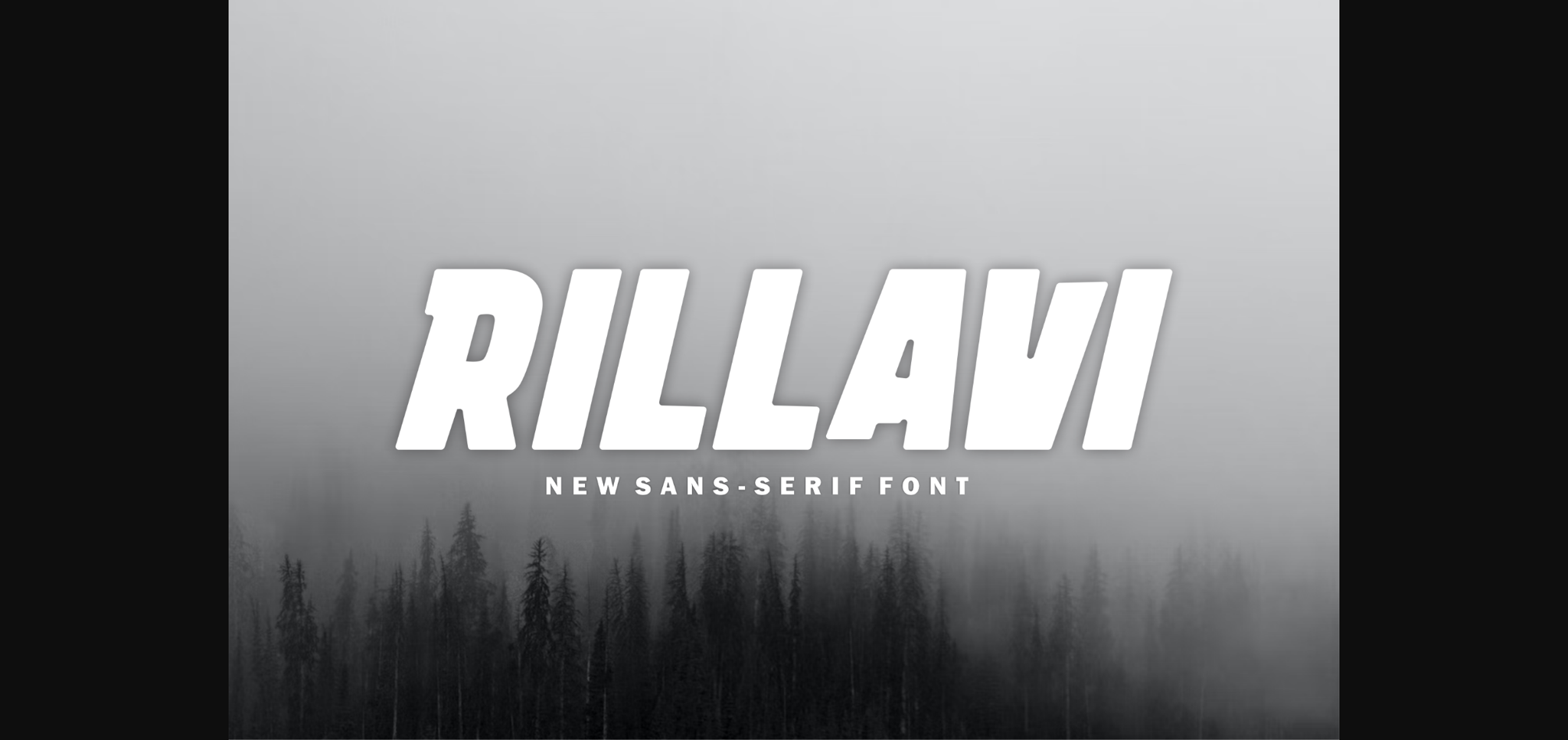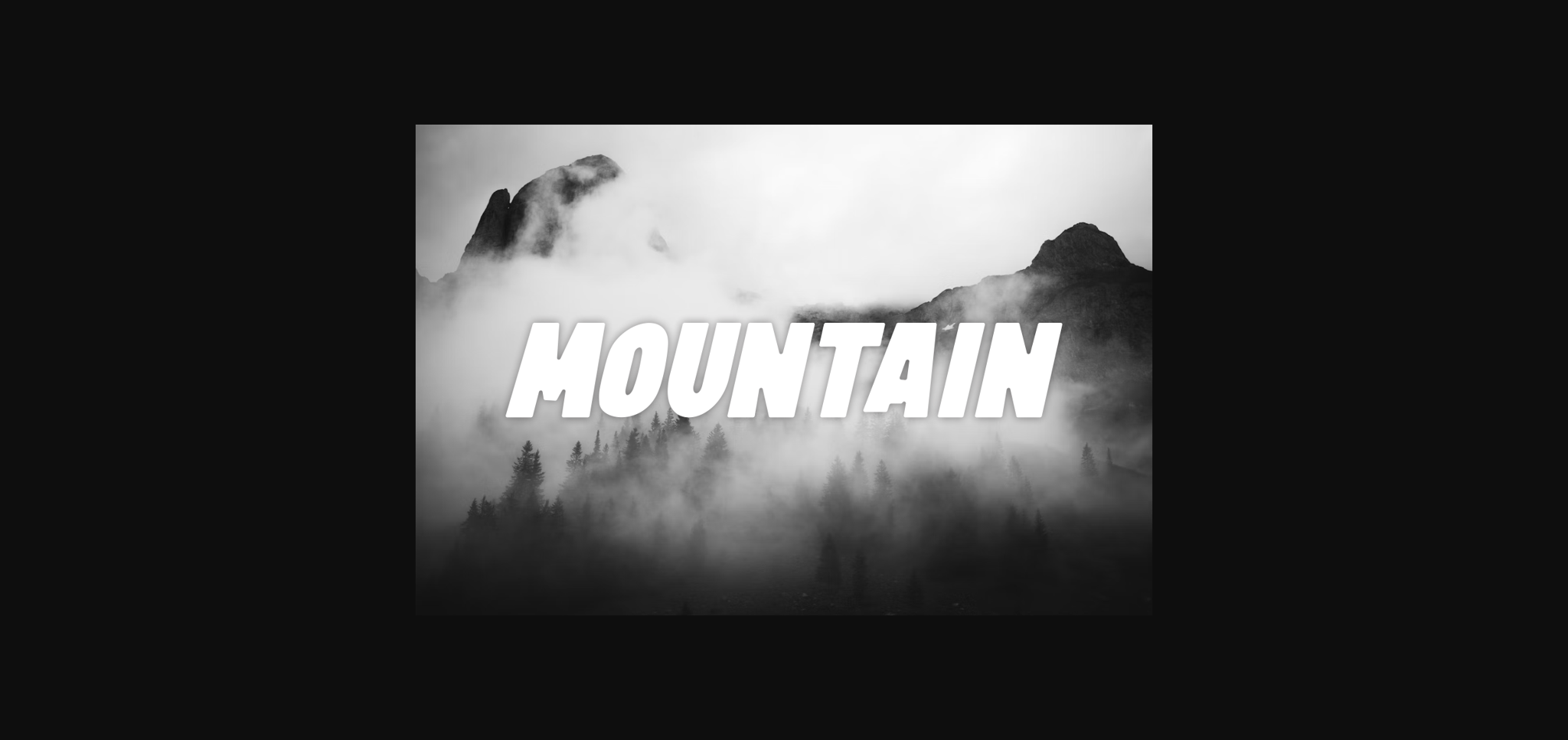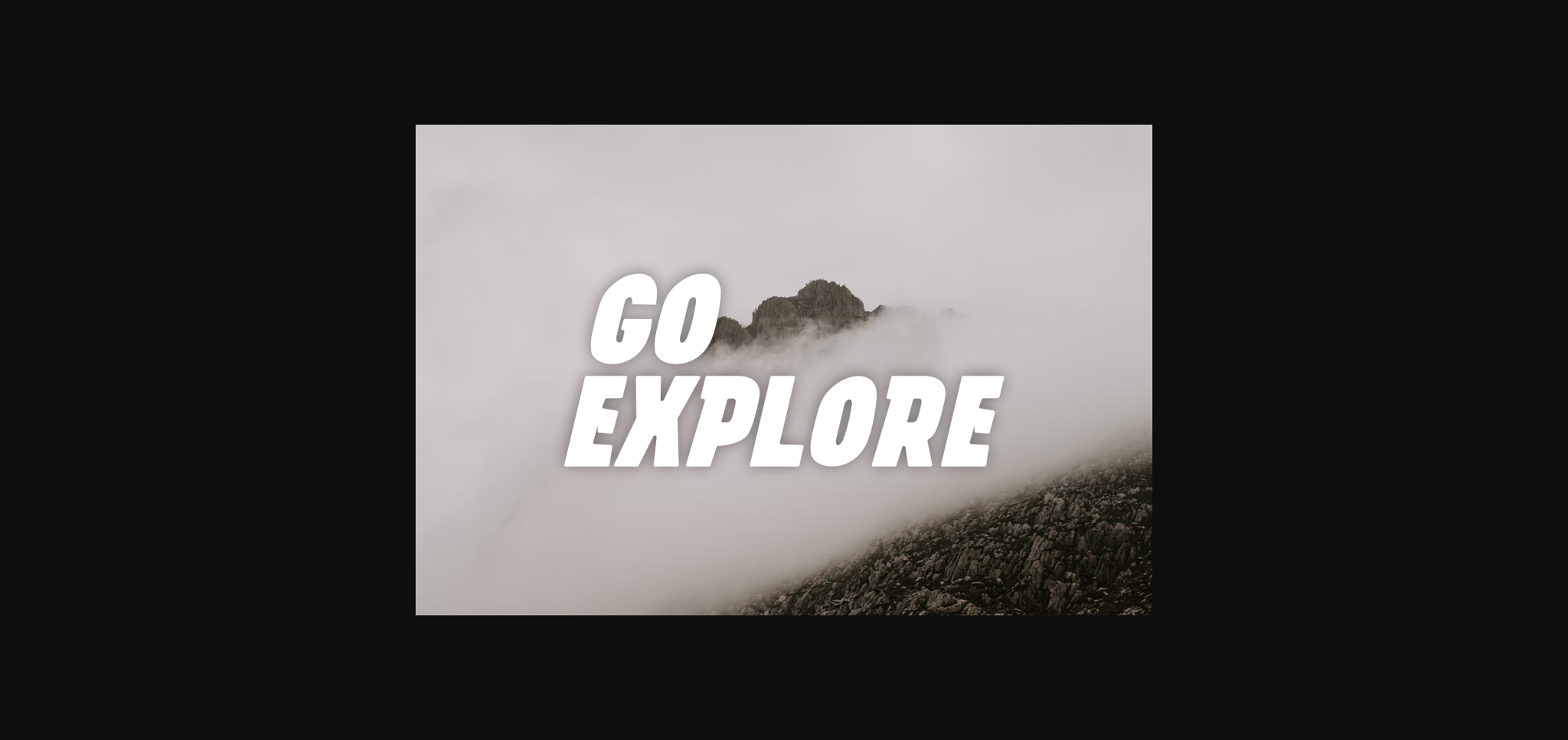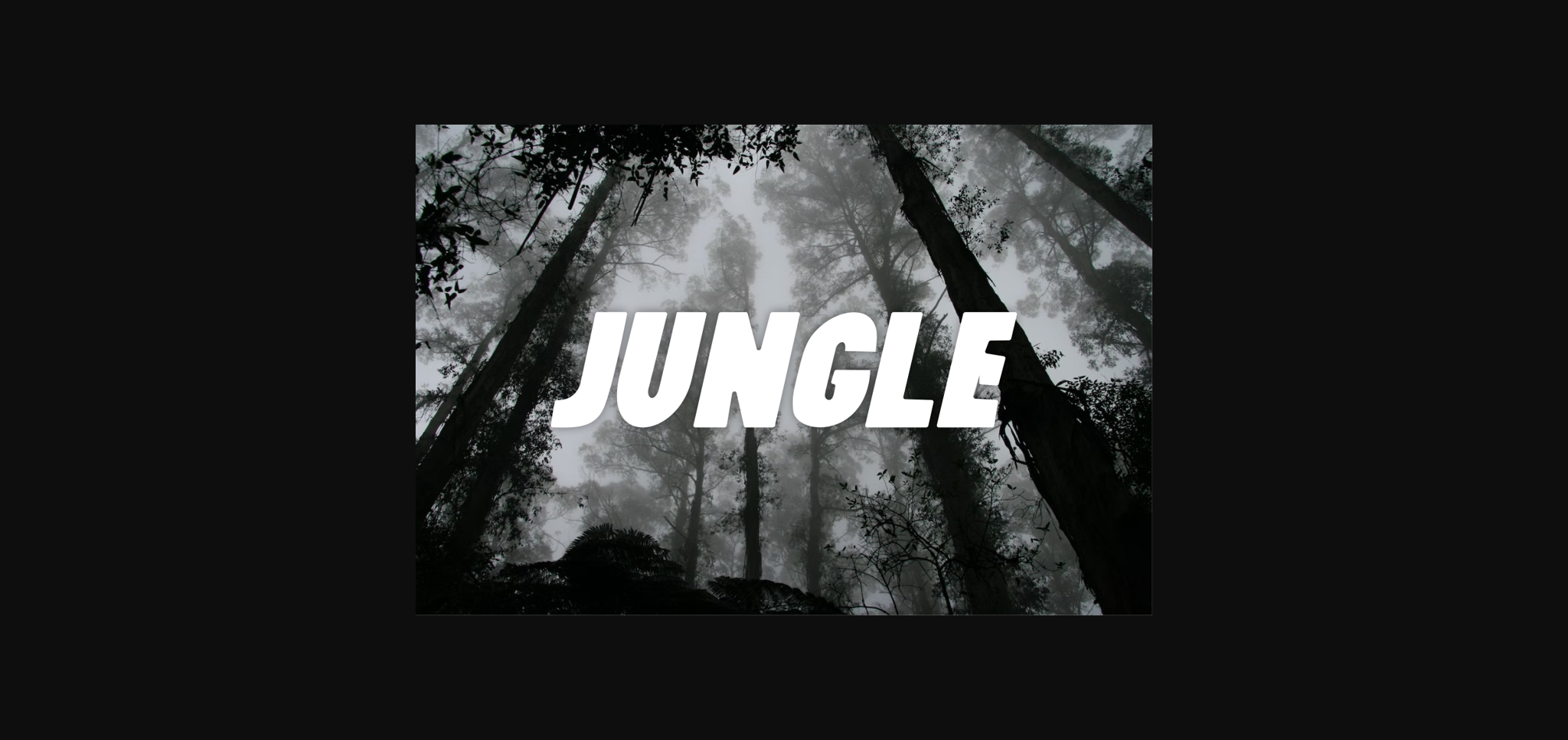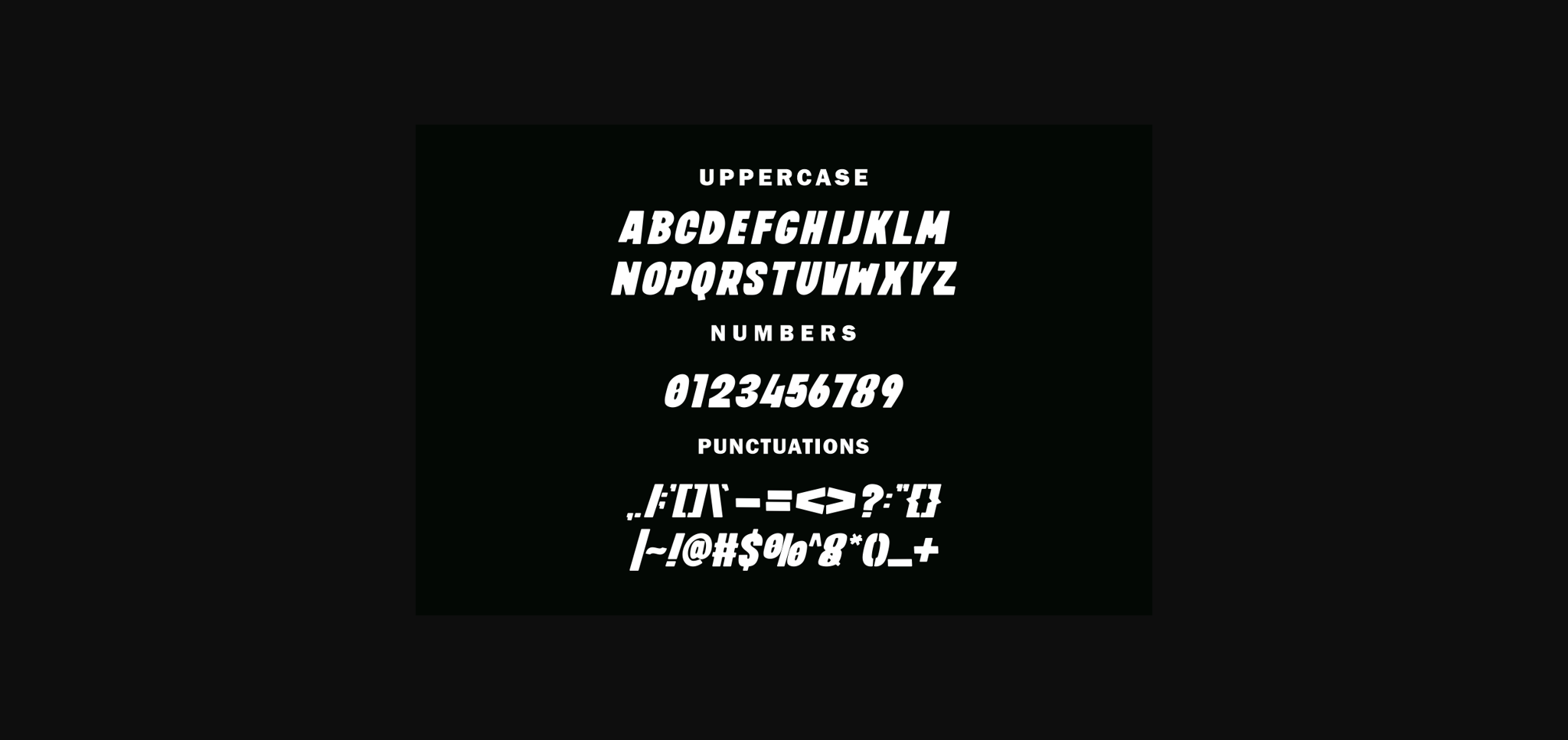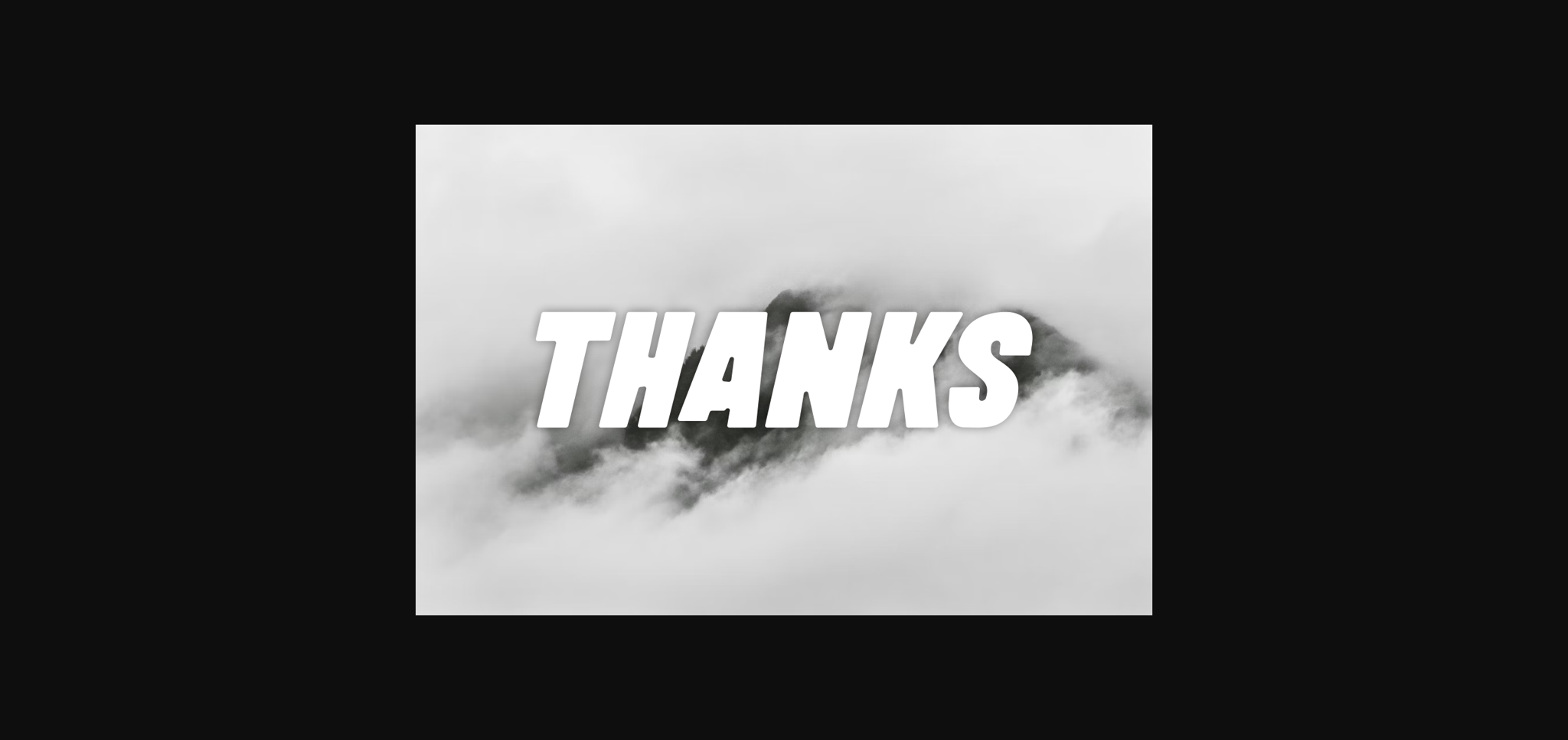
About Rillavi Font
Rillavi is a modern sans-serif font that feels beautiful classy, elegant, and bold. This font is perfectly suited for a wide variety of projects, such as signature, stationery, logo, wedding, typography quotes, magazine or book covers, website headers, clothing, branding, packaging design, and more.